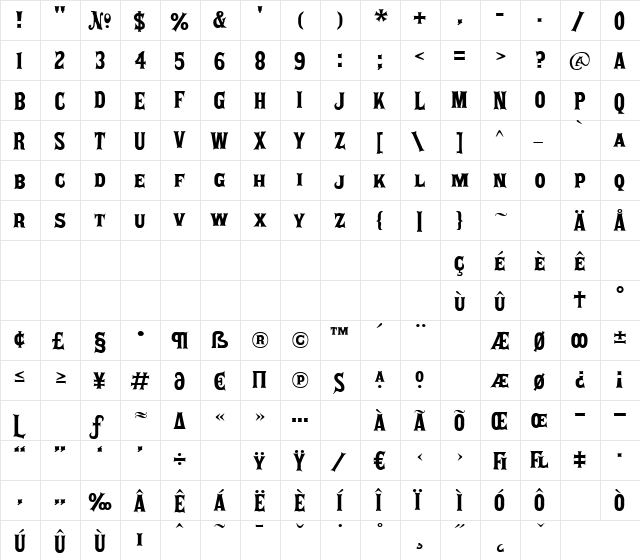
P22 Posada Regular Regular
| Designer | James Grieshaber |
Design Context for P22 Posada Regular Typeface
P22 Posada Regular offers clean, dependable letterforms without strong stylistic allegiance, making it a practical choice for designers who need flexibility.